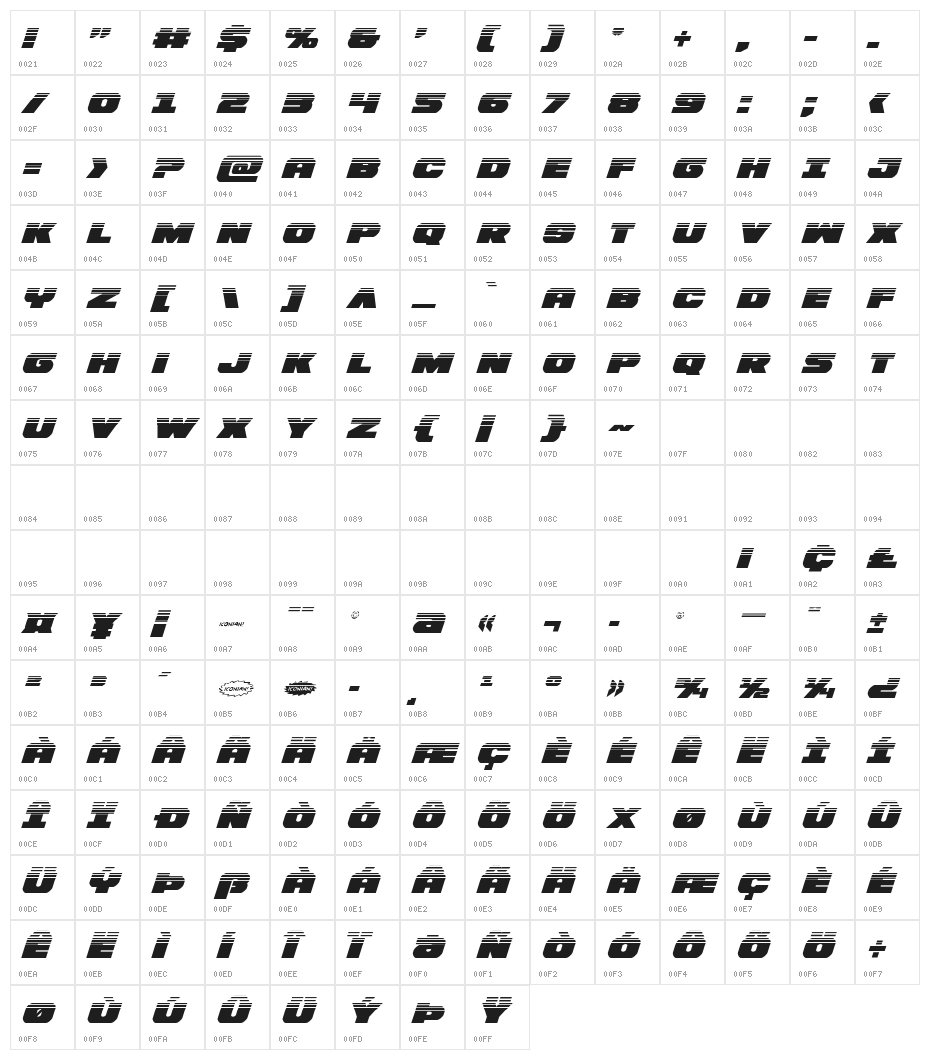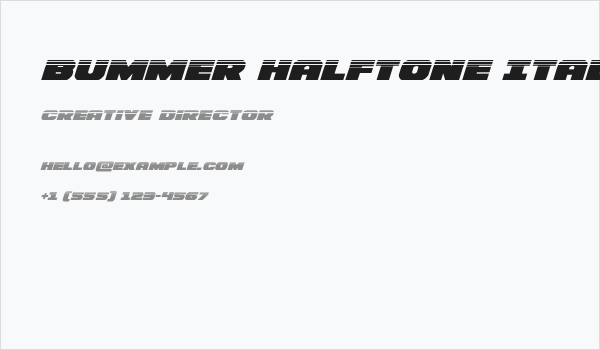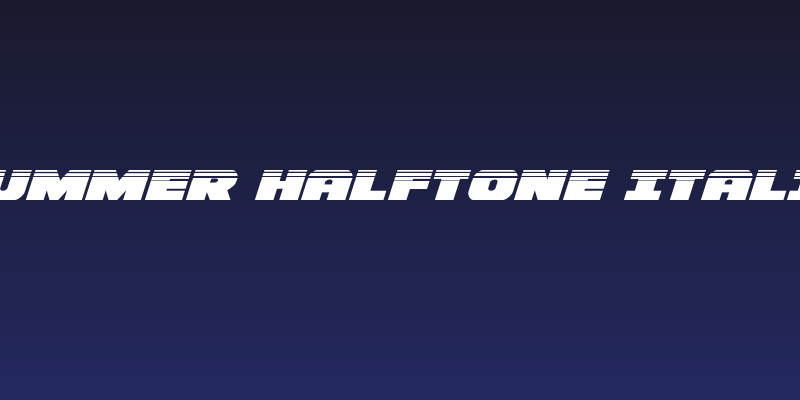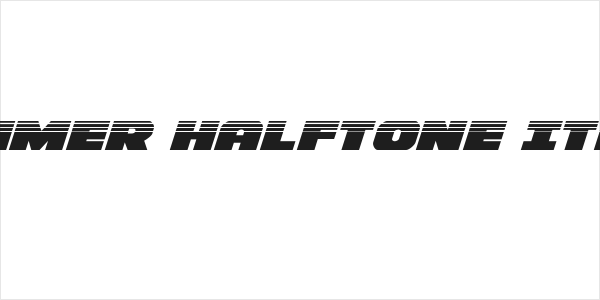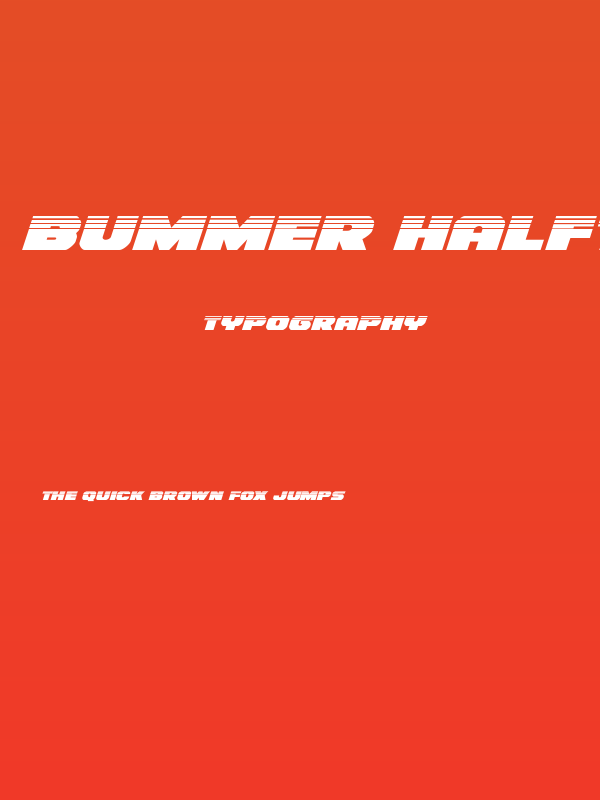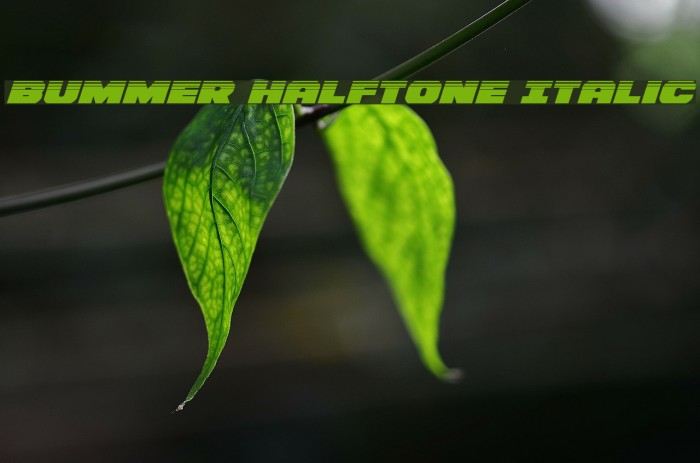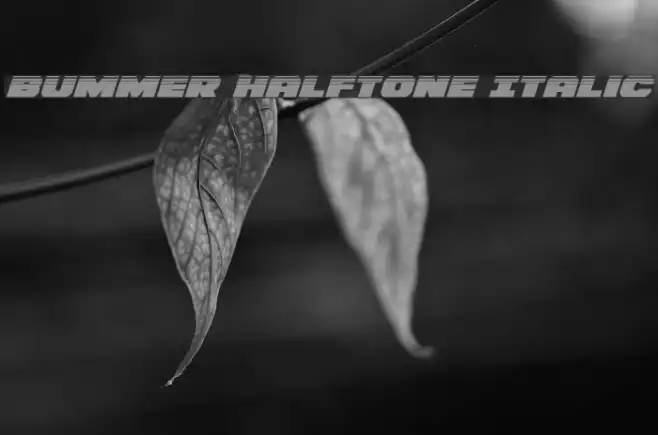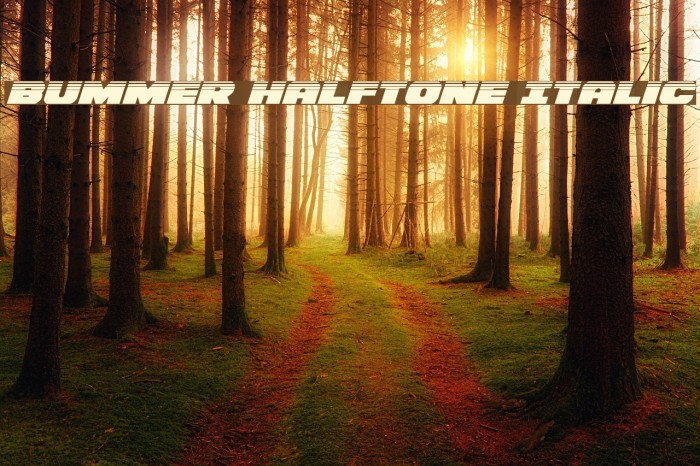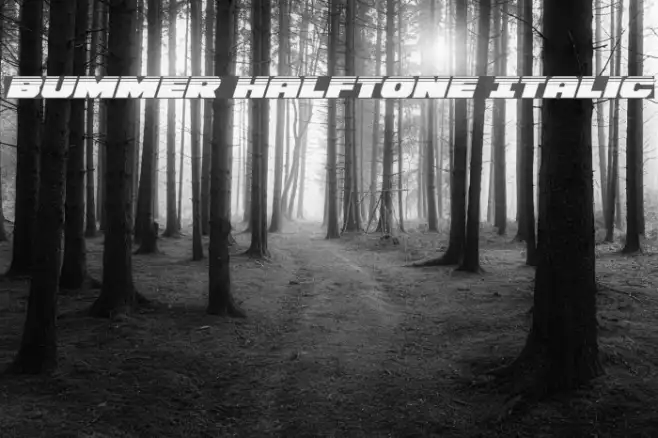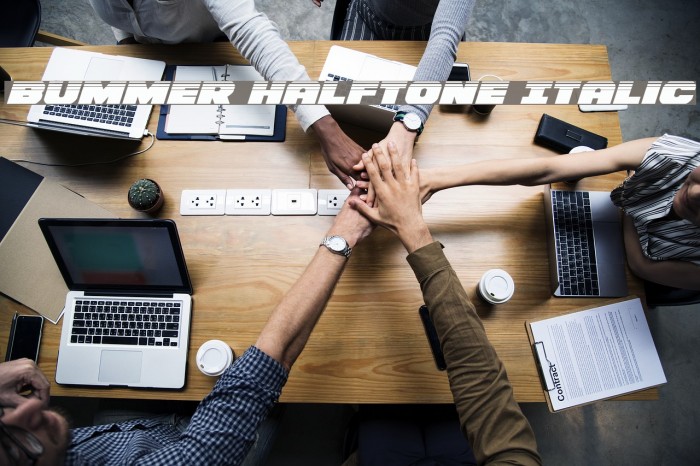
Bummer Halftone Italic Font
Bummer Halftone Italic Description
This font features a bold, italicized style with a distinct halftone effect that adds a dynamic and energetic feel. The characters are wide and have a strong presence, making them ideal for attention-grabbing designs. The uppercase and lowercase letters maintain a consistent style, with the halftone lines creating a sense of movement. The numbers and special characters are equally bold and follow the same design principles, ensuring a cohesive look across all text elements. This font's unique style makes it suitable for projects that require a modern and edgy aesthetic.